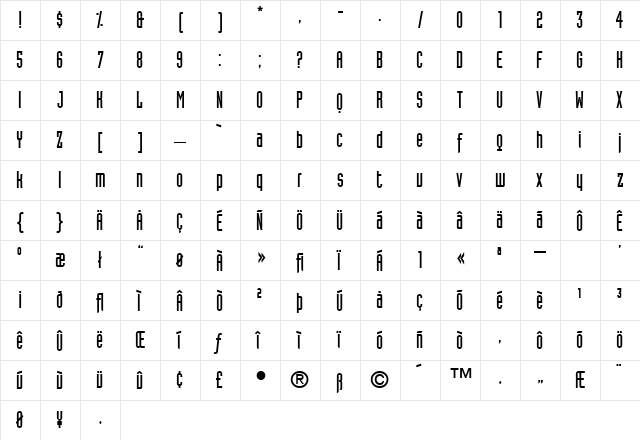
Industria-SolidA Regular
Design Context for Industria-SolidA Typeface
Industria-SolidA takes a measured approach to typography — its balanced proportions and neutral character make it a reliable workhorse for both digital and print work.